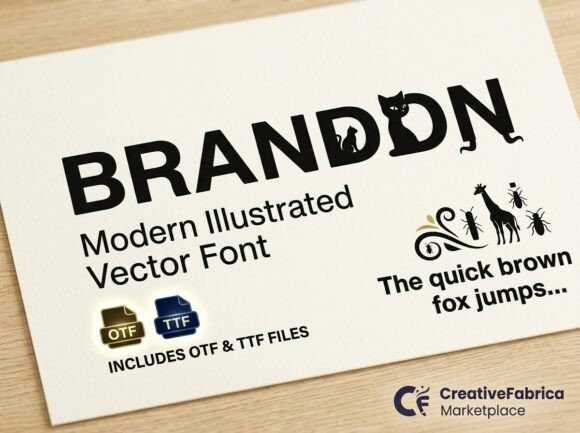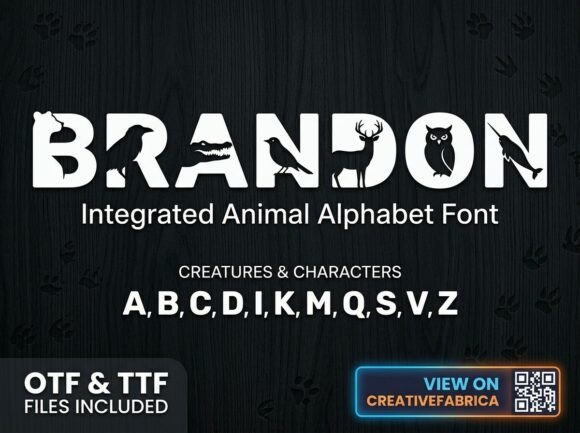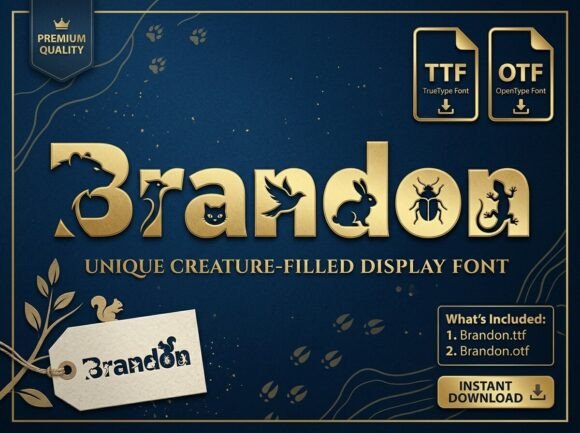
Meet the Wild Side of Typography
Have you ever stared at a blank design canvas and felt the urge to bring a touch of whimsy to your project? Maybe it’s a children’s book cover, a social media campaign, or even a zoo’s branding materials. Whatever it is, you’re in luck because we’ve got just the thing to unleash your creativity: Brandon Font.
This playful display font is more than just a pretty face – it’s an imaginative toolkit designed to make your designs come alive with a “living” aesthetic. With every character home to a different member of the animal kingdom, Brandon Font seamlessly integrates wildlife silhouettes into bold, modern letterforms. Whether you’re a seasoned designer or a newcomer to the world of typography, Brandon Font is a valuable asset that will elevate your projects and add a touch of magic to your designs.
Brandon Font Key Features
- Unique Characteristics: The font features a distinctive, modern sans-serif design with a friendly and approachable feel, making it perfect for corporate and creative projects.
- Weight and Style: Brandon Font comes in multiple weights, including light, regular, medium, bold, and black, allowing users to choose the perfect style for their project.
Brandon Font Review
I recently had the chance to work with the Brandon font, and I must say it’s a solid choice for body text. ✨ The font’s x-height is generous, making it easy to read, especially for longer passages of text. The font’s proportions are also well-balanced, resulting in a pleasant visual experience.
One of the things I appreciate about Brandon is its flexibility. ✨ It comes in a range of weights, from light to bold, allowing designers to create a visually appealing hierarchy of text. The font also supports a variety of languages, making it a great choice for global brands.
- ⚠️ Brandon font is not ideal for display text. While it’s great for body text, it may not hold up as well in larger font sizes or as a standalone headline.
- ⚠️ The font’s italics can sometimes appear a bit sloppy, particularly in smaller font sizes.
Overall, I think Brandon font is a great choice for body text and is suitable for a wide range of projects. While it may not be perfect for display text or detailed work, it’s a solid addition to any designer’s toolkit.
Tip: Use the Brandon Font for headings and titles to add a touch of sophistication to your designs.
Tip: Use the Brandon Font for logos, titles, and other text elements that require a clean and modern look.
Tip: Use the Brandon Font for presentations and documents that require a professional and modern look.
The Brandon Font is suitable for:
- Presentations and documents
Alternatives to Brandon Font
Montserrat is a sans-serif font designed for digital use. It’s a great alternative to Brandon Font for titles, headings, and short paragraphs. Montserrat is more geometric and modern compared to Brandon Font, making it ideal for modern and tech-related designs.
Similarity: Both fonts are sans-serif and suitable for digital use. Difference: Montserrat is more geometric and modern, while Brandon Font is more rounded and friendly.
Lato is a sans-serif font that’s perfect for body text and paragraphs. It’s a great alternative to Brandon Font for longer texts and articles. Lato is more readable and legible compared to Brandon Font, making it ideal for blogs and news websites.
Similarity: Both fonts are sans-serif and suitable for digital use. Difference: Lato is more readable and legible, while Brandon Font is more decorative and attention-grabbing.